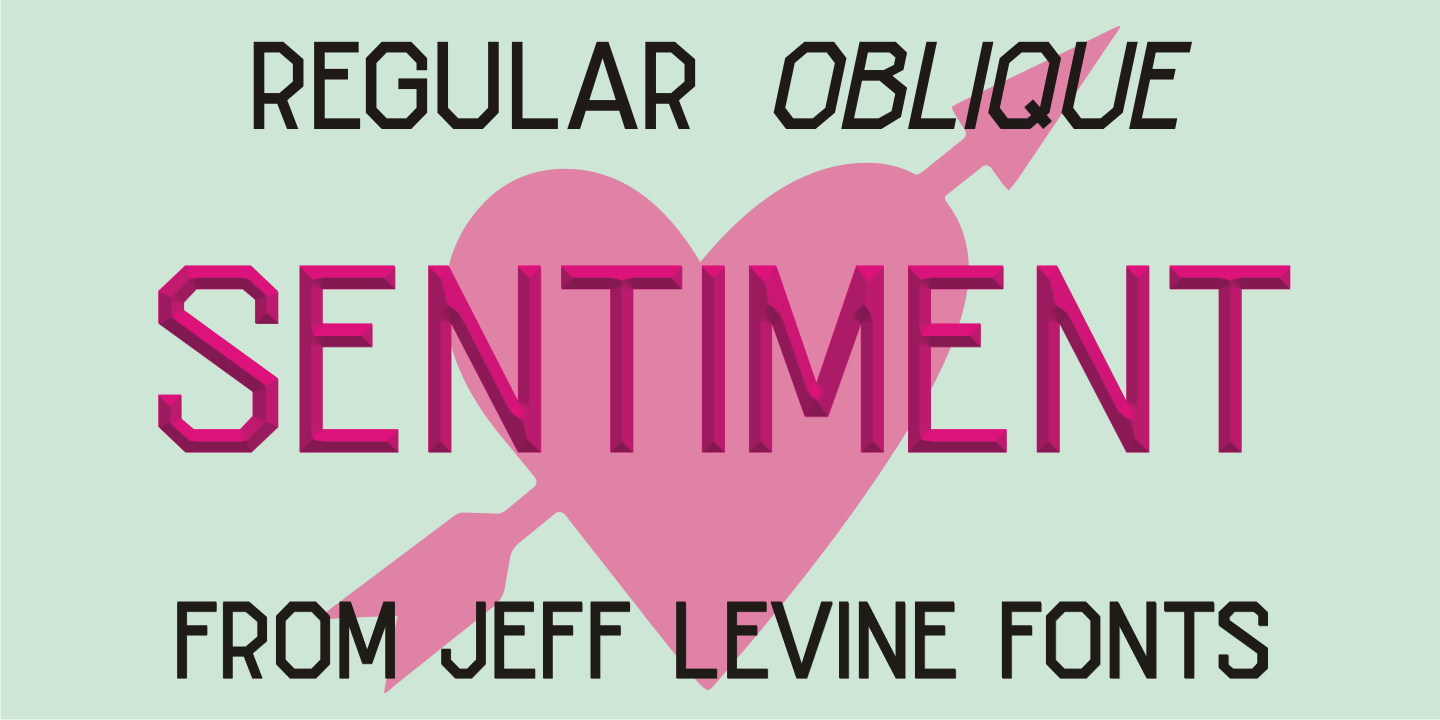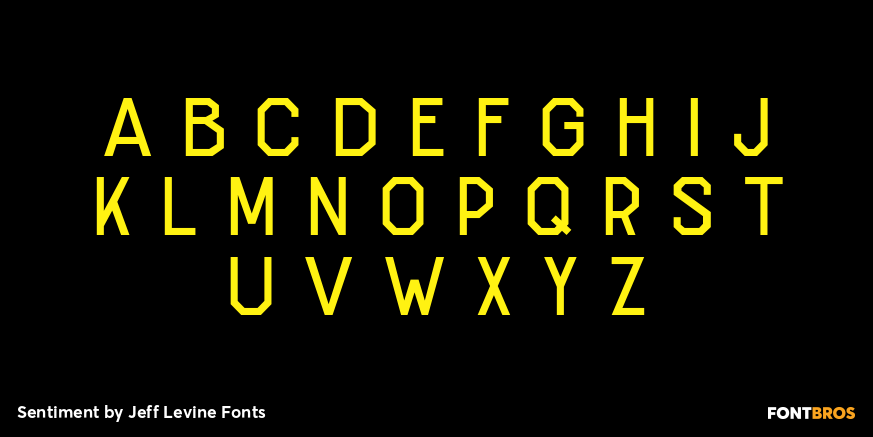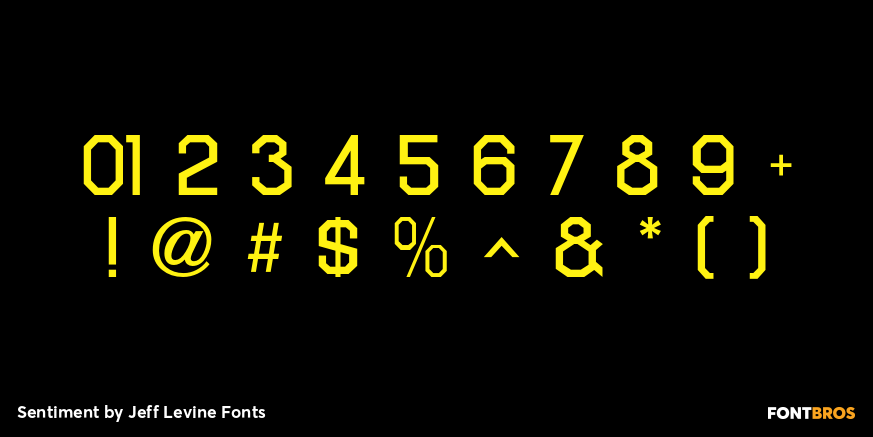
Sentiment
From the 1917 sheet music for 'The World Has Been So Mean to Me' comes a wonderfully hand lettered chamfered sans with varying widths and character shapes, now released digitally as Sentiment JNL in both regular and oblique versions.
This informal bit of lettering retains the stylish elements of the Art Nouveau period without the extreme eccentricities found in some typographic designs of the period.
Sentiment by Jeff Levine Fonts